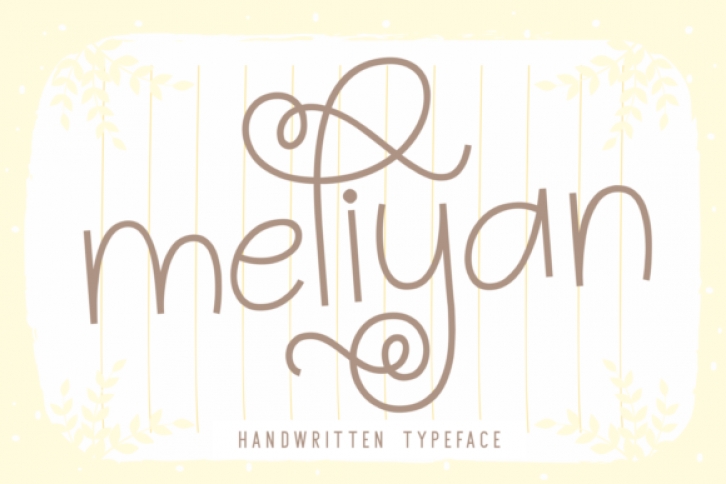
Meliyan is a thin, delicate and genuine script font. It looks beautiful on a variety of designs requiring a personalized style, such as wedding invitations, thank you cards, weddings, greeting cards, logos and so on.